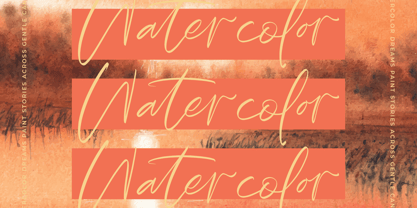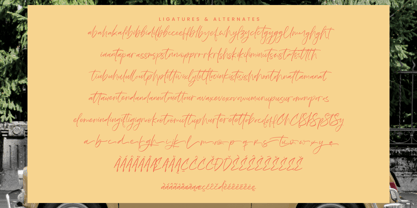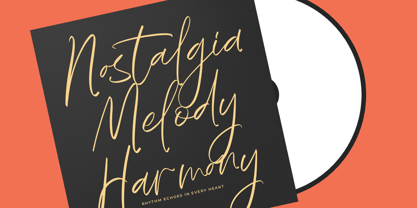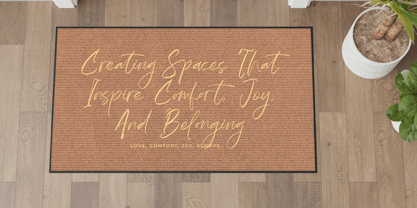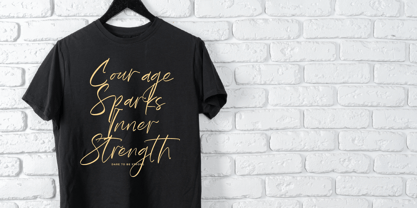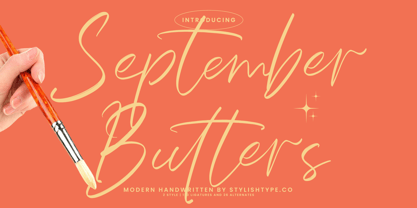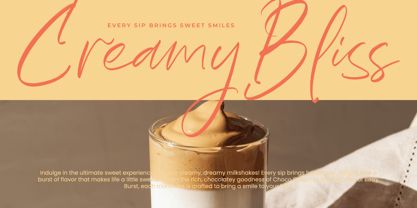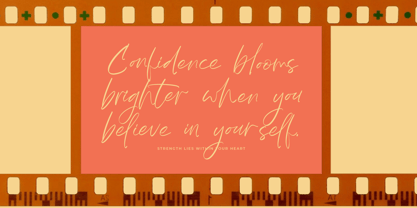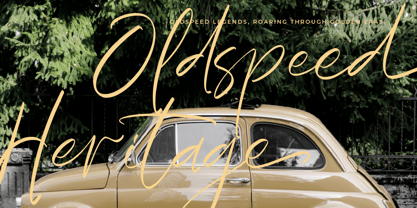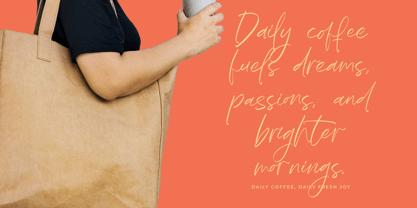
September Butters
The September Butters Font Family was designed by Heru Utama Putra and published by Stylishtype Studio. September Butters contains 2 styles and family package options.
September Butters - Modern Handwritten Font , from Stylishtype , Suitable for any projects such as: logos, branding projects, homeware designs, product packaging, mugs, quotes, posters, shopping bags, t-shirts, book covers, name card, invitation cards, greeting cards, label, photography, watermark, special events, and all your other luxury and beautiful projects that need a Luxury Script taste.